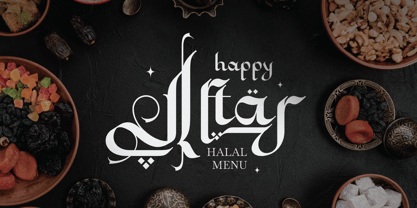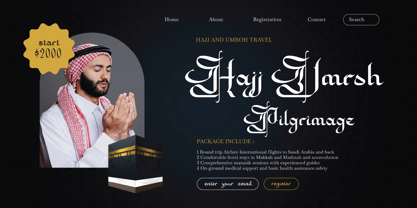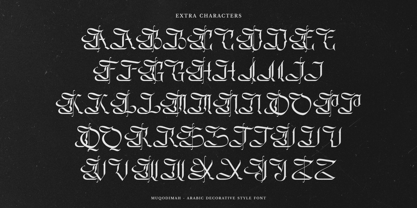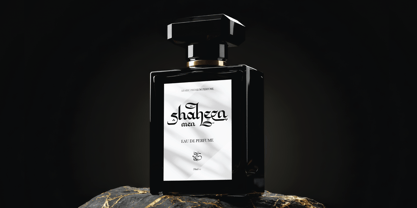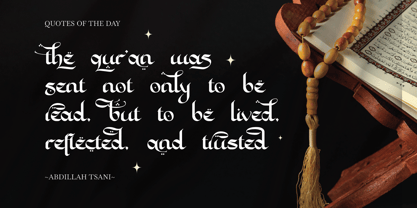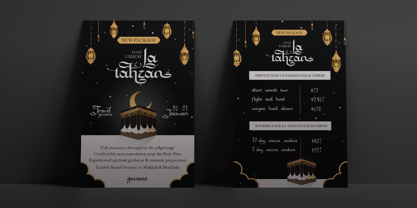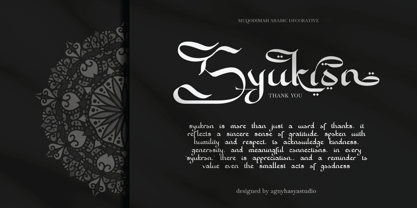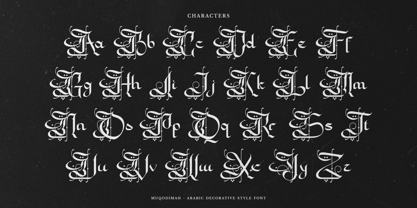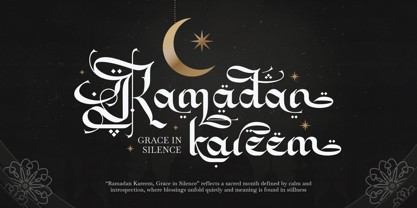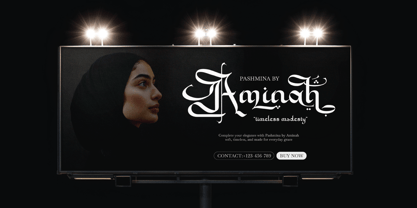
Muqodimah
The Muqodimah Font Family was designed by Firman Maulana and published by Agny Hasya Studio. Muqodimah contains 1 styles. More about this family
Muqodimah is a powerful Arabic-style display font inspired by vintage calligraphy, Old English lettering, and decorative Gothic aesthetics. Designed to evoke a sense of heritage, spirituality, and historical depth, this typeface delivers bold character with an artistic and ornamental presence. With its sharp contrasts, dramatic strokes, and calligraphic rhythm, Muqodimah blends Arabic visual culture with classic gothic structure, creating a unique typographic voice that feels sacred, timeless, and authoritative. This font is ideal for expressive headlines where tradition meets artistic boldness. Muqodimah is not intended for body text but shines as a statement font for titles, posters, book covers, and cultural or religious-themed designs. It offers a distinctive fusion of Arabic aesthetics and Gothic typography, perfect for designers seeking a font that conveys tradition, strength, and artistic depth. Its decorative nature makes every design feel intentional, expressive, and culturally rich. Thank you for checking out this font. If you have any questions or need support, feel free to get in touch. Warm regards, agnyhasyastudio